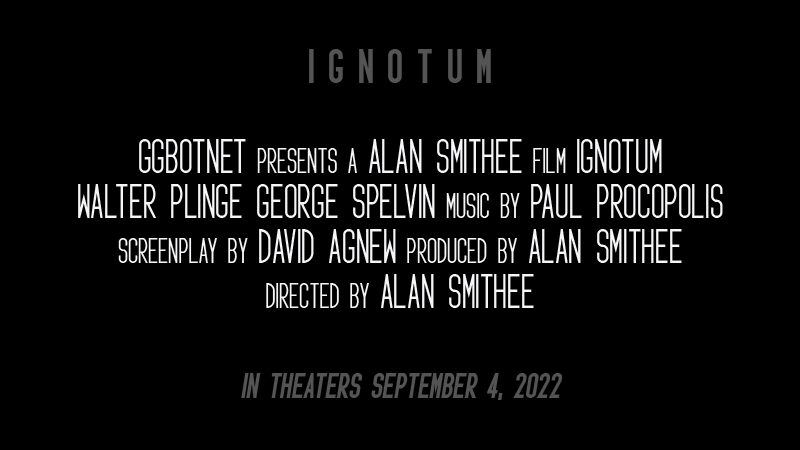
Ignotum Bold
Ignotum Bold font by GGBotNet is a condensed sans serif font with geometric and modernist influences. Its minimalist and modular style provides a structured appearance as each character aligns neatly with clean lines and a narrow horizontal flow.
Use Ignotum in contemporary projects whether it is websites, posters, apparel, apps, industrial designs, packaging, advertisements or branding. Have fun using this free type of tool to structure printouts no matter the field of service it’s meant for.